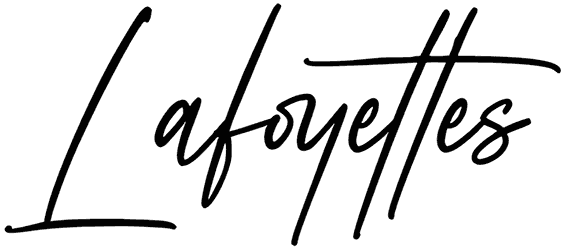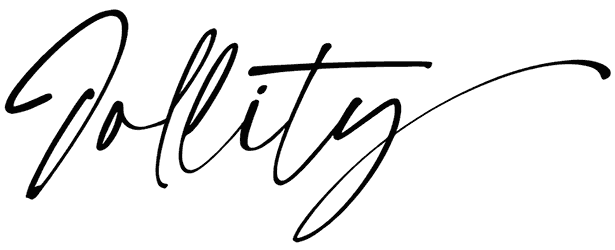
Melly Hailey Font
Even though Melly Hailey lacks numeric characters, its easygoing attitude and calligraphic undertones make it excellent for creative projects such as branding, card design, flyers, fashion design, and so on.
Autographic fonts have the potential to improve the aesthetics of your typography while also preventing it from becoming monotonous. Take control of your design by putting this script font on it to flip the game around.